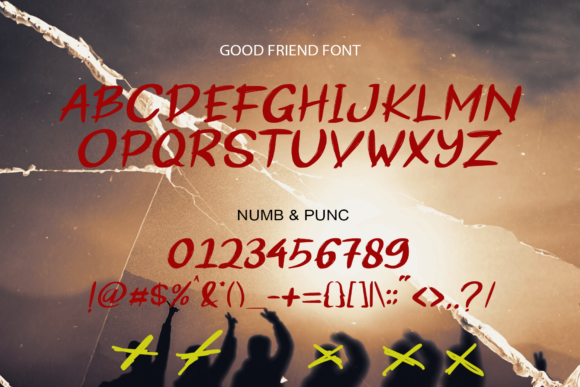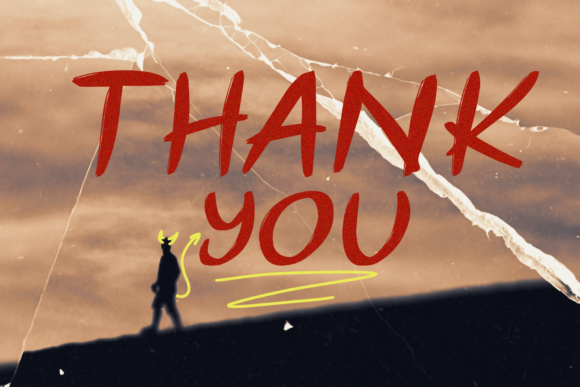
Introducing the “Good Friend” Font: Elevate Your Designs with a Unique Touch
Are you tired of using the same old fonts in your creative projects? Do you want to add a personal touch that sets your designs apart from the rest? Look no further than the “Good Friend” font, a modern and versatile typeface that is sure to take your work to the next level. With its hard strokes and signature style, “Good Friend” creates an instant unique sensation that will leave a lasting impression on your audience.
The Power of Typography: Why “Good Friend” Stands Out
Typography is a crucial element in any design project, as it can make or break the overall aesthetic and tone of your work. The right font can evoke emotions, convey messages, and add a touch of personality to your designs. “Good Friend” is more than just a font – it’s a tool that can help you create special and touching typographical designs that resonate with your audience. Whether you’re working on a greeting card, heading, flyer, product packaging, book cover, or logo, “Good Friend” is the perfect choice.
Endless Possibilities with “Good Friend”
One of the best things about “Good Friend” is its versatility. This font is not limited to a specific style or genre, making it a universal choice for designers and crafters. You can use it to create:
- Greeting cards for special occasions, such as birthdays, weddings, and holidays
- Headings and titles for blogs, articles, and social media posts
- Flyers and brochures for events, promotions, and products
- Product packaging that stands out on store shelves
- Book covers that grab readers’ attention
- Printed quotes and posters that inspire and motivate
- Logos and branding materials that reflect your unique identity
What Makes “Good Friend” So Special?
So, what sets “Good Friend” apart from other fonts? Here are just a few features that make it a standout:
- Hard strokes: “Good Friend” has a bold and confident look, thanks to its hard strokes that give it a unique texture and depth.
- Signature style: This font has a distinctive signature style that adds a touch of personality to your designs.
- Modern and universal: “Good Friend” is a modern font that can be used in a wide range of design projects, from digital to print.
Take Your Designs to the Next Level with “Good Friend”
Whether you’re a professional designer or a crafter looking to add a personal touch to your projects, “Good Friend” is the perfect choice. With this font, you can:
- Create unique and eye-catching designs that stand out from the crowd
- Add a personal touch to your projects that resonates with your audience
- Experiment with different styles and genres, from modern to vintage
In conclusion, the “Good Friend” font is a game-changer for designers and crafters looking to elevate their creative projects. With its hard strokes, signature style, and versatility, this font is sure to become a staple in your design toolkit. So why wait? Download “Good Friend” today and take your designs to the highest levels!